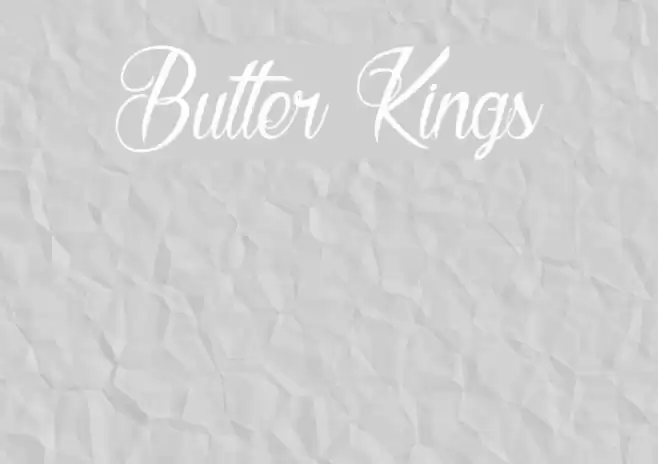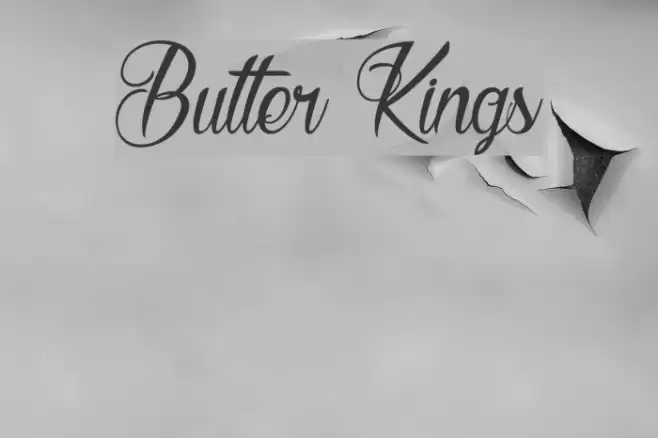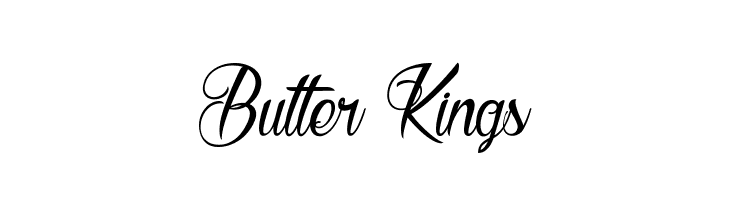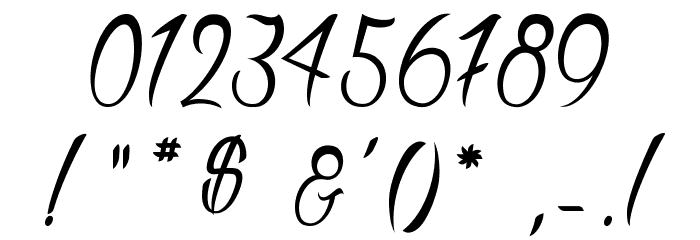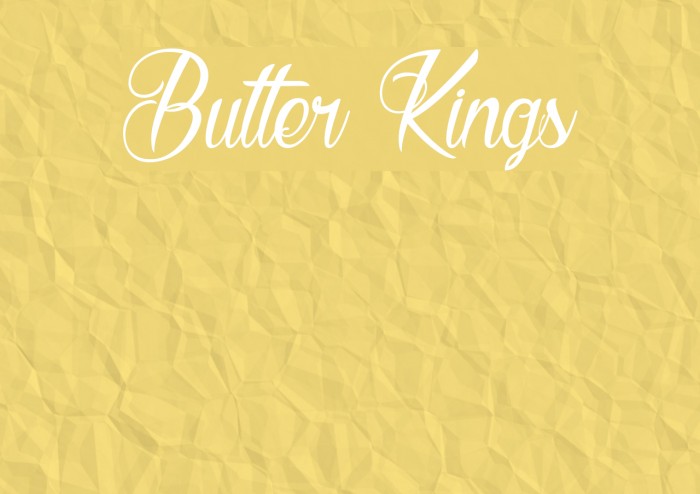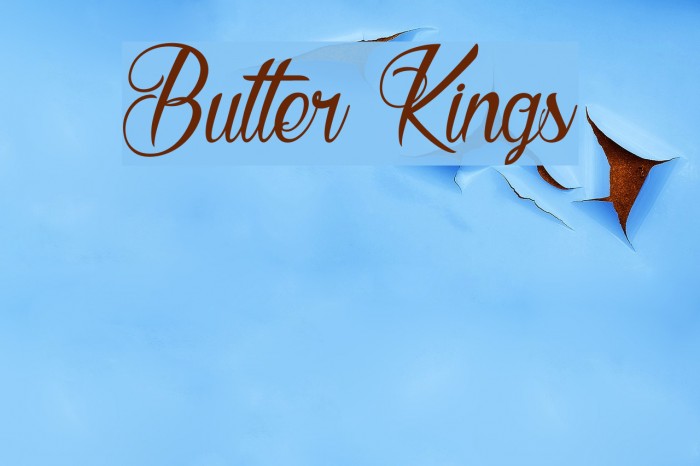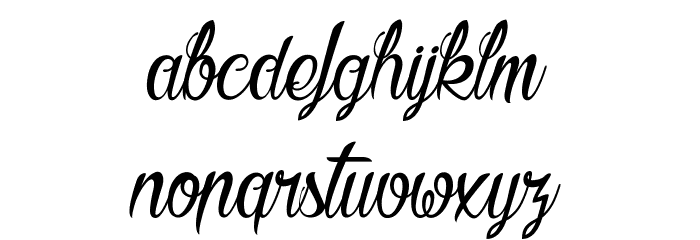
Butter Kings Font
Butter Kings Description
This font features an elegant and flowing script style, characterized by its intricate loops and flourishes. The uppercase letters are particularly ornate, with exaggerated curves that give a sense of movement and grace. The lowercase letters maintain a consistent style, offering a harmonious blend with the uppercase. Numbers and special characters are designed to match the overall aesthetic, ensuring a cohesive look. The font's design is reminiscent of traditional calligraphy, making it suitable for projects that require a touch of sophistication and elegance.
An elegant script font with intricate loops and flourishes from Uncategorized fonts.
- Proposed Projects: Ideal for wedding invitations, elegant branding, and decorative headlines.
- Use Case: Headlines, Invitations, Branding